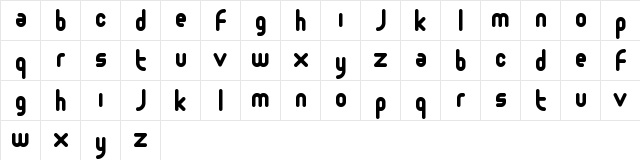
Moloko Regular
Design Context for Moloko Typeface
Moloko takes a measured approach to typography — its balanced proportions and neutral character make it a reliable workhorse for both digital and print work.